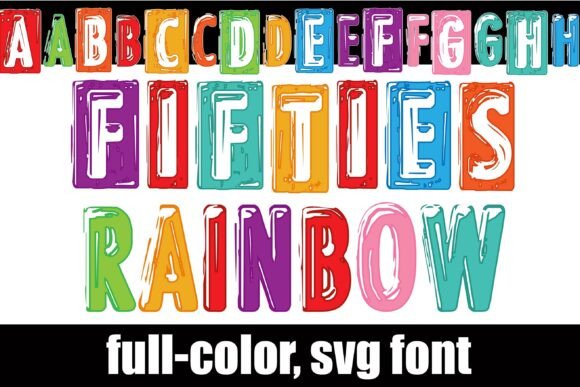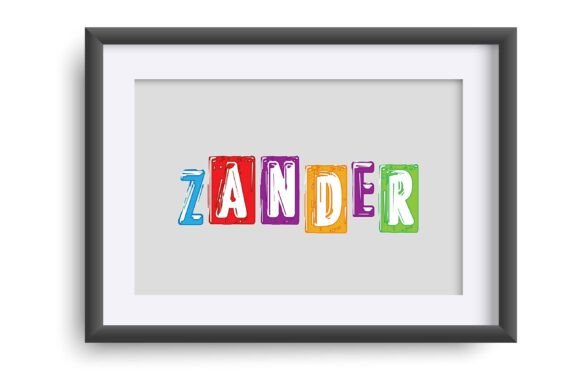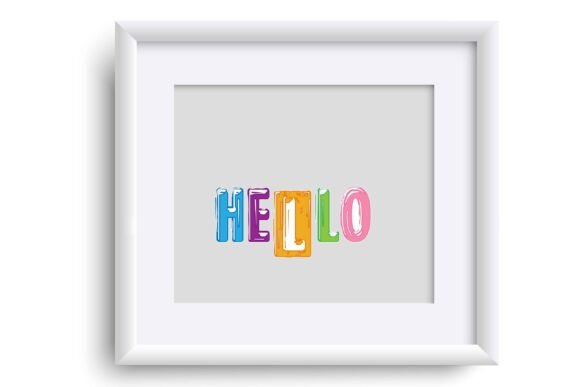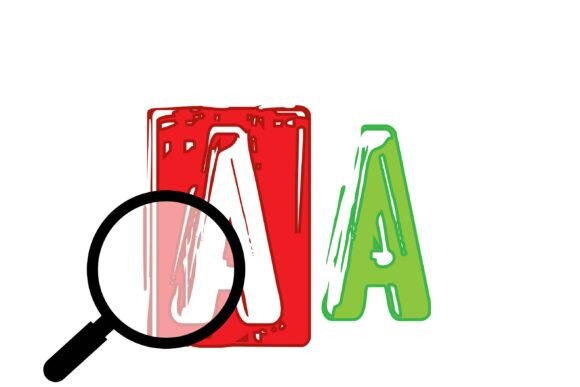
Fifties Rainbow Font
About the Fifties Rainbow Font
The wait is over! The incredible Fifties Rainbow Font is now available for your design toolkit. This full-color font features a rainbow of colors on textured 3d imprints. There is an alt case of additional colors of each letter that you can access through your system or Silhouette’s glyph map.